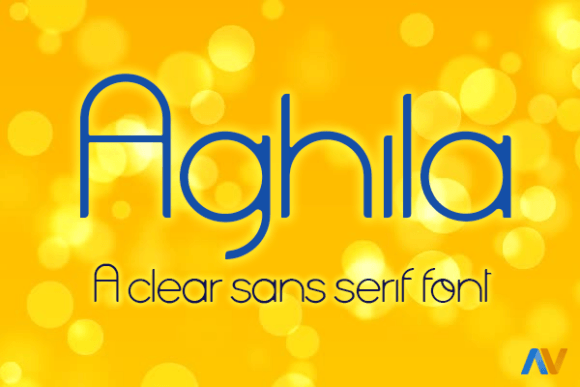
Discover Aghila: The Pure, Sans-Serif Font Redefining Digital Design
In the realm of digital design, typography plays a pivotal role in communicating messages, evoking emotions, and crafting aesthetic experiences. Among the myriad of fonts available, one sans-serif font has been making waves for its purity, simplicity, and versatility: Aghila. Flawlessly fashioned by renowned designer Alberto Villanueva, Aghila is a masterpiece that brings together the elegance of modern design with the functionality of webfonts, making it an ideal choice for a wide array of creative projects.
Origins and Design Philosophy
Aghila, named for its creator, Alberto Villanueva, embodies a design philosophy centered around simplicity, legibility, and timelessness. Villanueva, with his keen eye for detail and deep understanding of typographic history, aimed to create a font that not only pays homage to the classic sans-serif designs but also introduces a unique, stand-alone style. The result is a font that exudes a sense of modernity while being deeply rooted in the principles of good typography.
Uncluttered and Smooth Design
One of the defining features of Aghila is its uncluttered and smooth design. Each letterform is meticulously crafted to ensure that the font appears sleek and sophisticated, whether it’s used in digital interfaces or print materials. The clean lines and geometric shapes contribute to its readability, making it an excellent choice for body text, headings, and even display purposes.
A Blend of Classic Inspirations and Unique Style
While Aghila draws subtle echoes from iconic fonts like Avantgarde, it proudly stands on its own with a unique style that is distinctly recognizable. This blend of classic inspirations with a fresh perspective allows Aghila to offer a distinctive look that can elevate any design project. Villanueva’s ability to balance familiarity with innovation is a testament to his skill as a type designer.
Seamless Digital Use with Webfonts
In today’s digital-centric world, the importance of webfonts cannot be overstated. Aghila comes with added webfonts, ensuring that its clean design and smooth aesthetic are preserved across various digital platforms. This feature makes Aghila not just a beautiful font, but also a practical choice for web designers and digital artists looking for a typeface that will look great on any device.
Timeless Aesthetics and Versatility
Aghila extends a timeless aesthetics, offering great versatility and legibility across multiple applications. Whether it’s used for corporate branding, digital marketing materials, websites, or print publications, Aghila adapts seamlessly. Its neutral yet elegant appearance makes it an alluring choice for designers who seek a font that can complement a wide range of creative projects without overpowering them.
The Amalgam of Simplicity and Sophistication
What sets Aghila apart in the crowded world of typography is its successful amalgamation of simplicity and sophistication. In an era where design trends come and go, Aghila stands out as a beacon of enduring style. It demonstrates that simplicity does not have to be boring, but can instead be a powerful tool for creating elegant, engaging, and effective designs.
Ideal for a Variety of Creative Projects
Given its versatile nature, Aghila is suitable for an array of creative projects. Here are a few applications where Aghila can truly shine:
- Branding and Corporate Identity: Aghila’s clean and professional appearance makes it perfect for logos, business cards, and other corporate materials.
- Web Design: Its legibility on screens and adaptability to various digital contexts make Aghila an excellent choice for website design, mobile apps, and interactive media.
- Print Publications: Aghila’s timeless elegance ensures it works well in magazines, brochures, posters, and books, adding a touch of sophistication to any print project.
- Digital Marketing: For digital ads, social media graphics, and email newsletters, Aghila offers a fresh and modern look that can help brands stand out.
Embracing the Future of Typography with Aghila
Aghila, the pure, sans-serif font designed by Alberto Villanueva, represents a significant achievement in typographic design. Its flawless blend of simplicity, elegance, and functionality positions it as a valuable asset for designers worldwide. Whether you’re working on a digital project, a print publication, or a branding initiative, Aghila offers a compelling combination of aesthetics and usability. As we look to the future of design, fonts like Aghila will undoubtedly play a crucial role in shaping the visual language of our digital and physical environments.